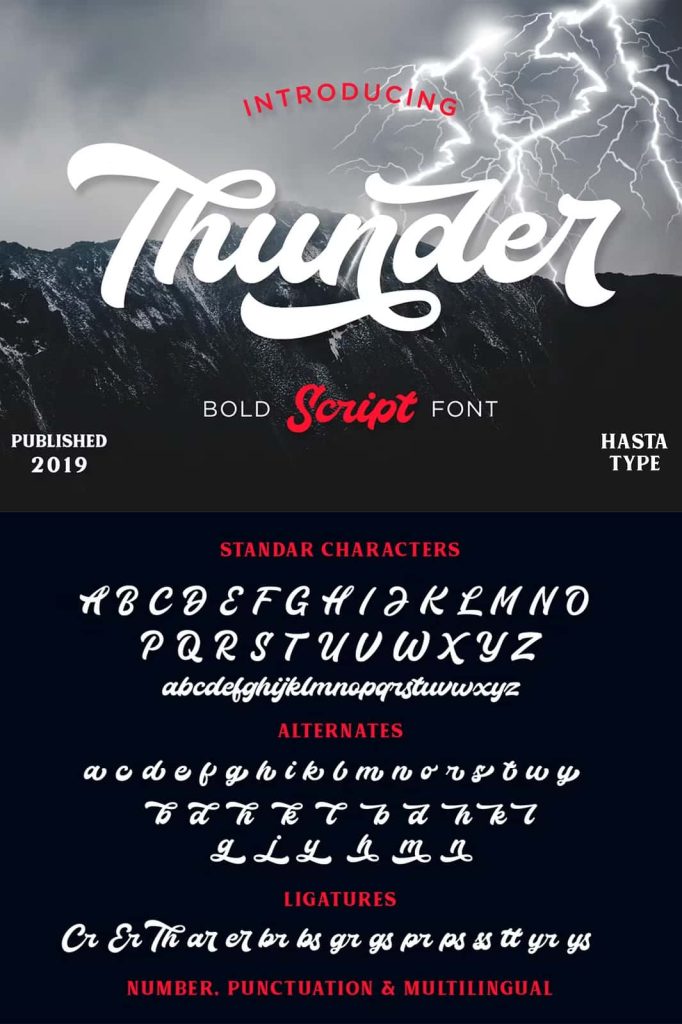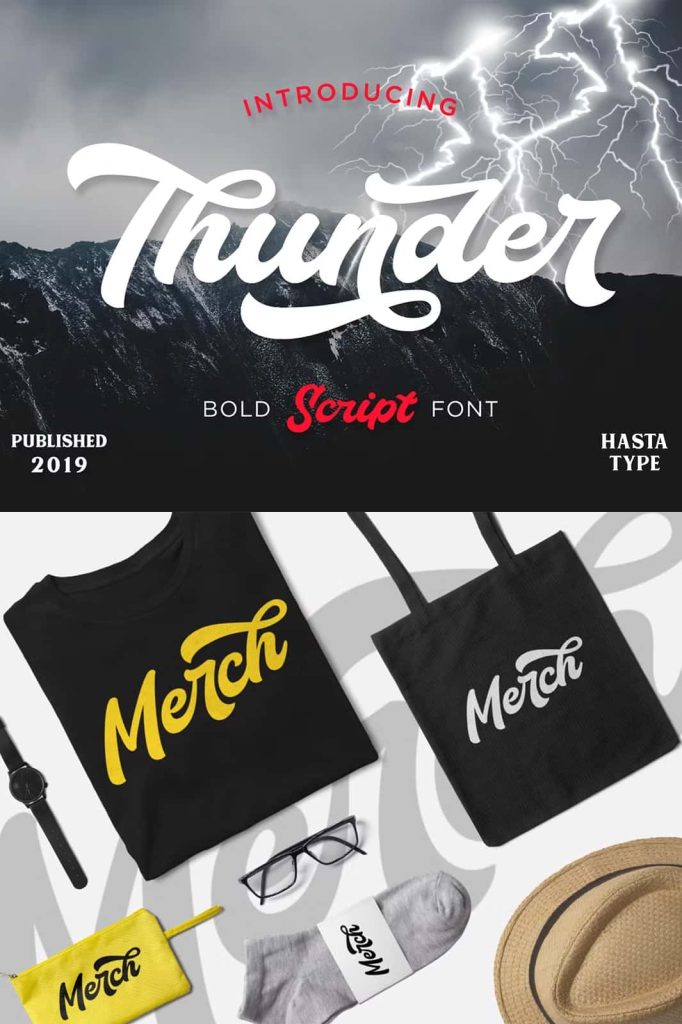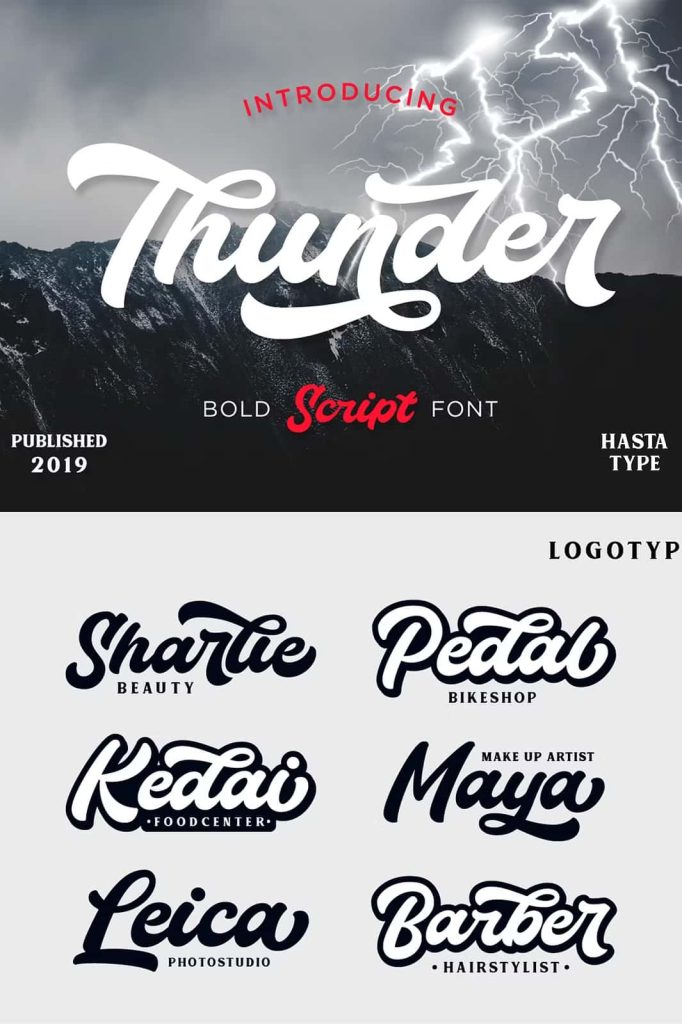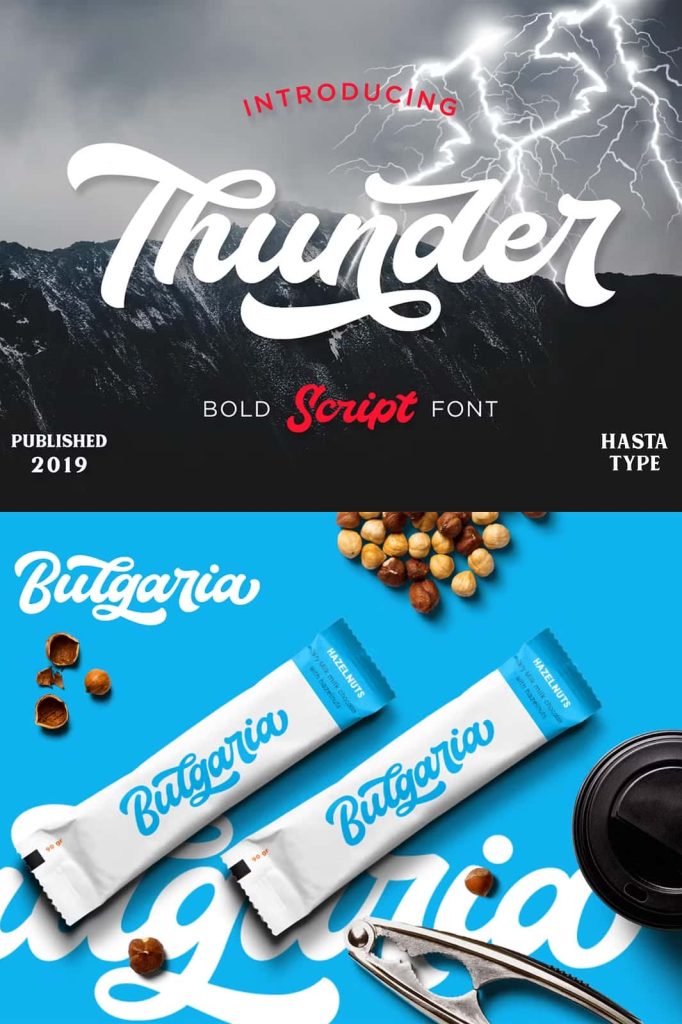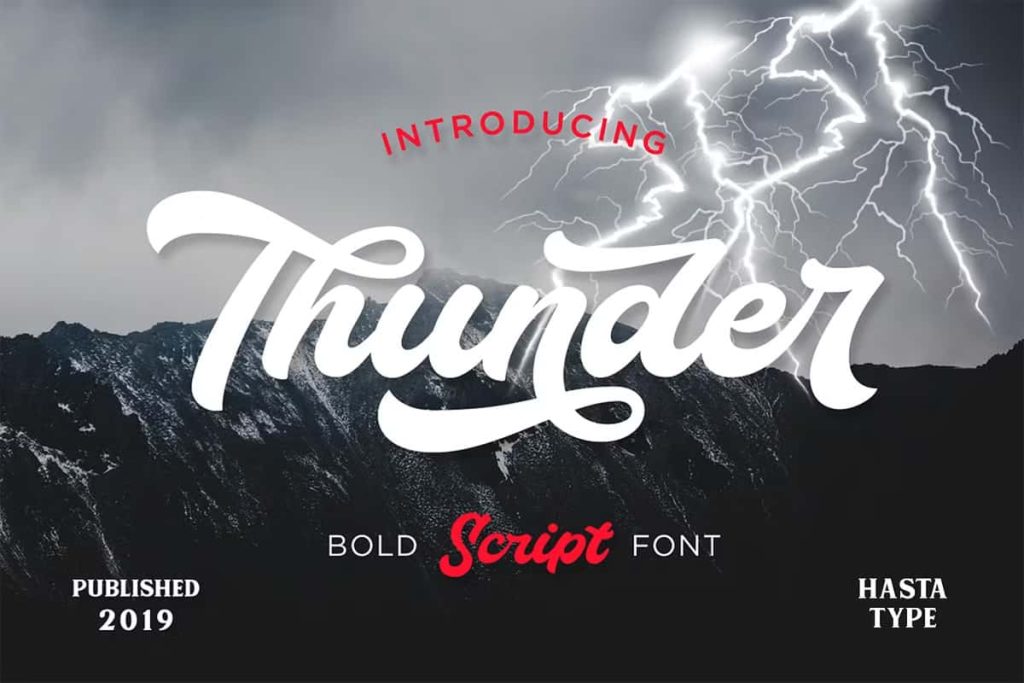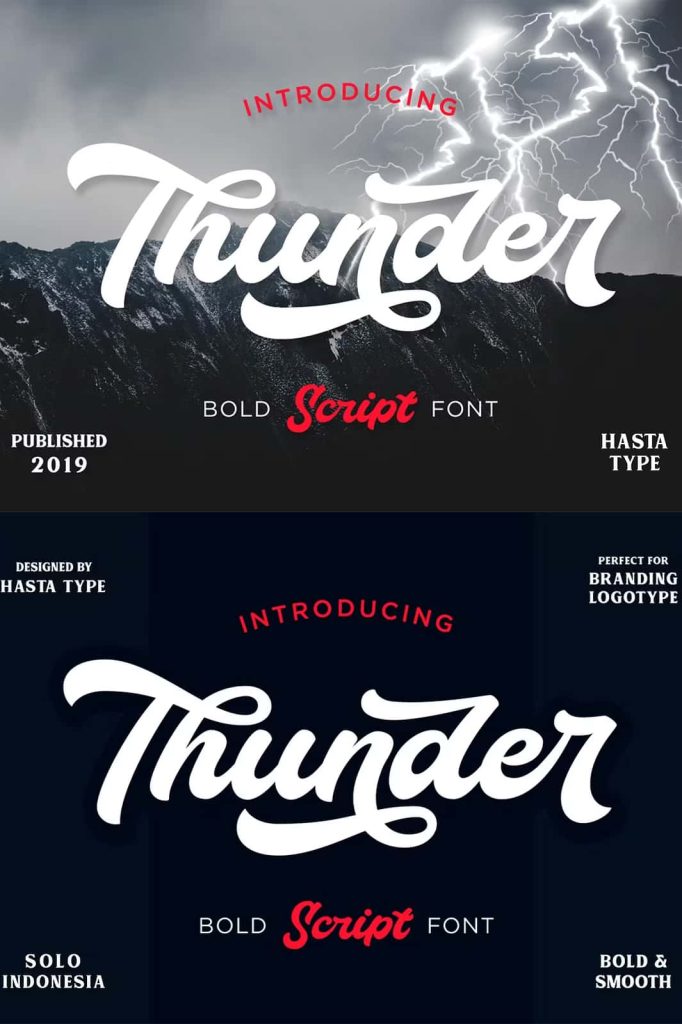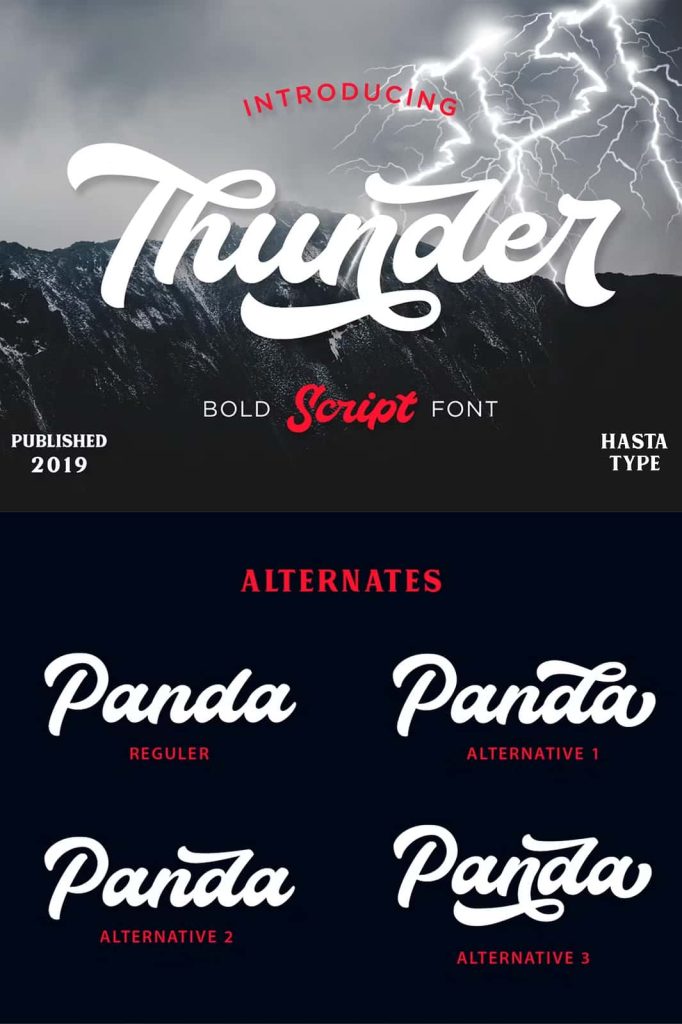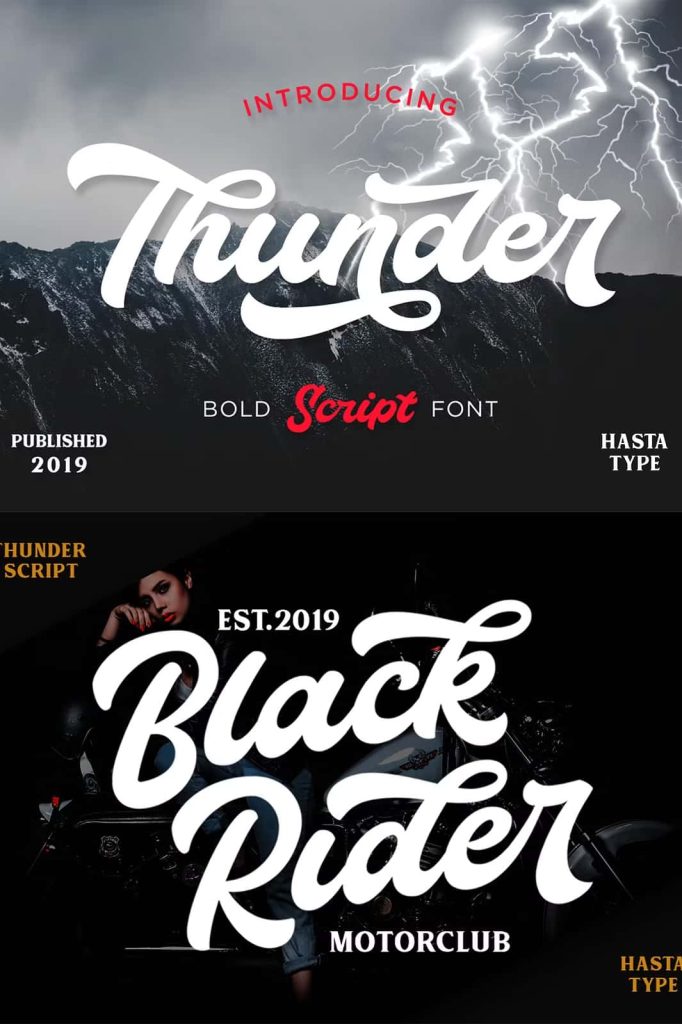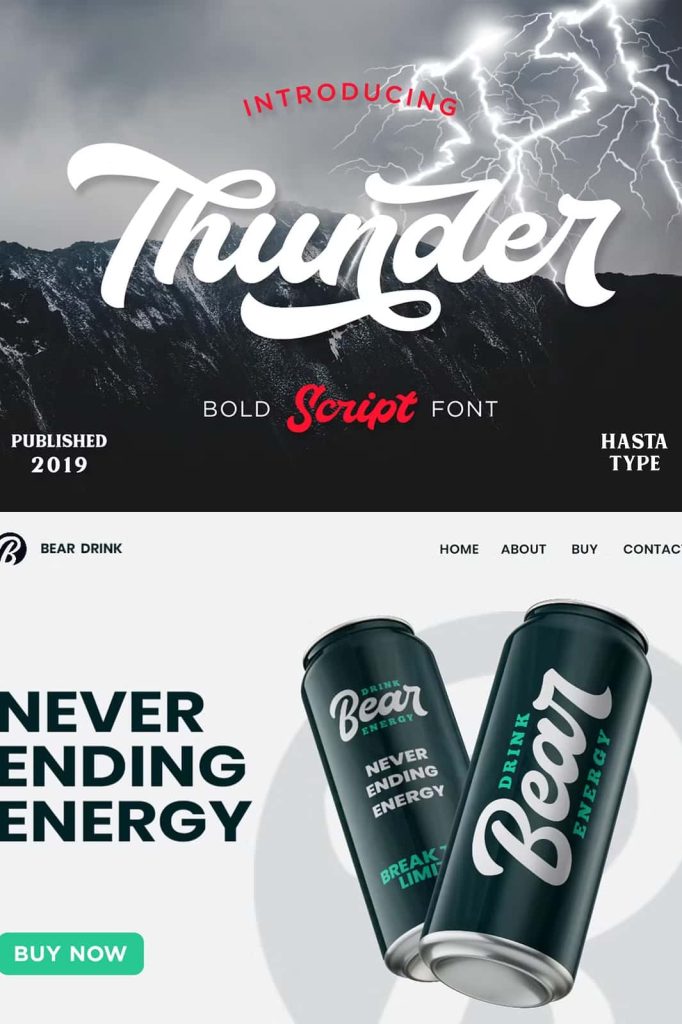
Thunder Bold Script Font
Thunder Bold Script Font is a modern and classy handwritten typeface designed to bring strength, elegance, and personality to every creative project. Featuring bold strokes, smooth curves, and dynamic circular movements, this font delivers a stylish handcrafted appearance that instantly enhances visual communication. Whether you are creating a professional brand identity, designing eye-catching marketing materials, or developing unique merchandise, Thunder Bold Script Font provides the versatility and visual impact needed to make your work stand out.
Modern Hand-Lettered Style with Strong Character
Created with a balance of sophistication and creativity, Thunder Bold Script Font combines contemporary script styling with confident letterforms. Each character has been carefully crafted to achieve a natural handwritten flow while maintaining excellent readability. The bold structure adds authority and presence, while the smooth connections between letters create a refined and professional appearance.
The font’s distinctive circular movements and elegant swashes help designers build visually engaging compositions without requiring extensive customization. This makes Thunder Bold Script Font an excellent choice for both experienced professionals and beginners looking to achieve premium typography results quickly and efficiently.
Designed for Creative Flexibility
Thunder Bold Script Font was developed to help designers easily combine typography elements within a wide range of design applications. Its versatile style adapts effortlessly to different industries, themes, and branding requirements. The font can serve as the centerpiece of a design or complement other typography choices to create balanced and attractive layouts.
The handcrafted appearance adds authenticity and warmth to projects, making it ideal for businesses and creators who want to establish a more personal connection with their audience. Whether used in large display settings or smaller branding elements, the font maintains its visual appeal and professional quality.
Perfect for Branding and Logo Design
One of the strongest applications of Thunder Bold Script Font is branding and logo creation. The bold handwritten style creates memorable visual identities that communicate confidence, creativity, and professionalism. Designers can use this font to develop logos that feel both modern and timeless, helping brands establish a recognizable presence in competitive markets.
Its elegant curves and natural flow allow logos to appear distinctive while maintaining a polished appearance. This makes Thunder Bold Script Font particularly suitable for fashion brands, beauty products, creative agencies, lifestyle businesses, restaurants, and premium product lines.
Ideal Uses for Thunder Bold Script Font
- Logo design and brand identity projects
- Product packaging and labeling
- Merchandise and apparel graphics
- Advertising and promotional materials
- Social media content and marketing campaigns
- Website headers and digital branding
- Business cards and stationery
- Wedding invitations and special event designs
- Poster and flyer creation
- Custom typography artwork
Enhance Packaging and Merchandise Designs
Packaging plays a critical role in attracting customer attention, and Thunder Bold Script Font helps products create a strong first impression. Its stylish handwritten appearance adds a premium touch to labels, boxes, bottles, and retail packaging. The font’s bold characteristics ensure important brand messages remain visible while maintaining a sophisticated aesthetic.
For merchandise projects, the font performs exceptionally well on apparel, accessories, promotional products, and custom gifts. Its distinctive personality helps create memorable designs that resonate with customers and strengthen brand recognition.
Create Professional and Artistic Typography
Thunder Bold Script Font offers the perfect combination of artistic expression and professional functionality. The smooth hand-lettered design captures the charm of authentic handwriting while providing the consistency and precision required for commercial design work. This balance makes the font suitable for a broad range of creative applications across print and digital media.
Whether you are developing a sophisticated logo, crafting elegant packaging, designing stylish merchandise, or producing engaging promotional materials, Thunder Bold Script Font provides the tools needed to create compelling visual experiences. Its modern script style, bold presence, and handcrafted elegance make it a valuable addition to any designer’s font collection.
Why Choose Thunder Bold Script Font?
Thunder Bold Script Font delivers a powerful combination of modern elegance, bold typography, and handwritten authenticity. With its smooth lettering, strong visual impact, and versatile design capabilities, this font helps designers create memorable and professional results across a variety of creative projects. If you are looking for a script font that combines style, flexibility, and premium quality, Thunder Bold Script Font is an excellent choice for your next design project.